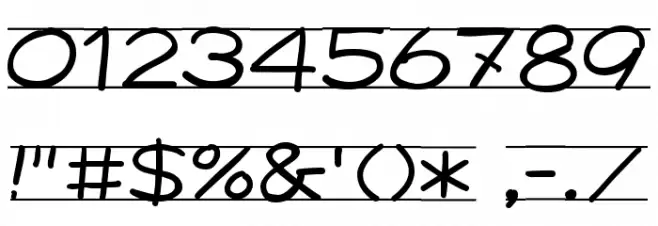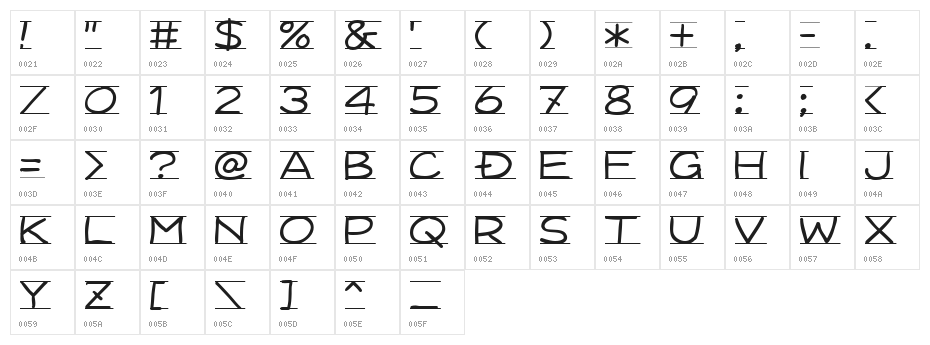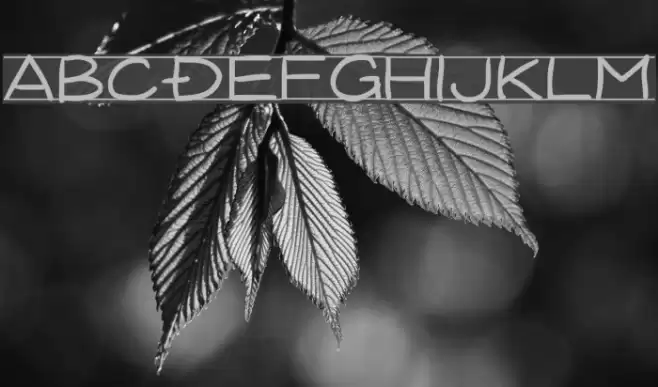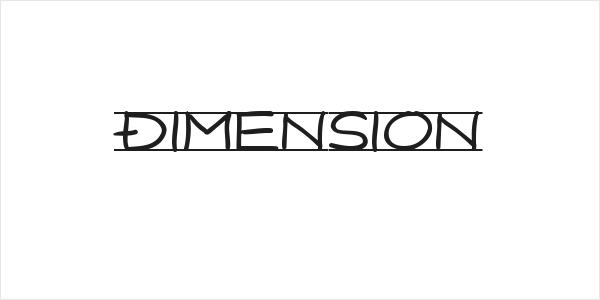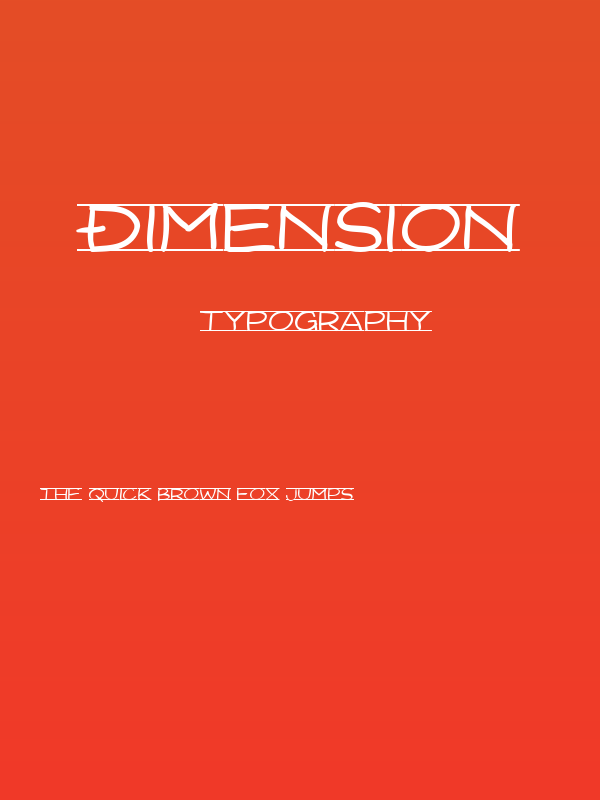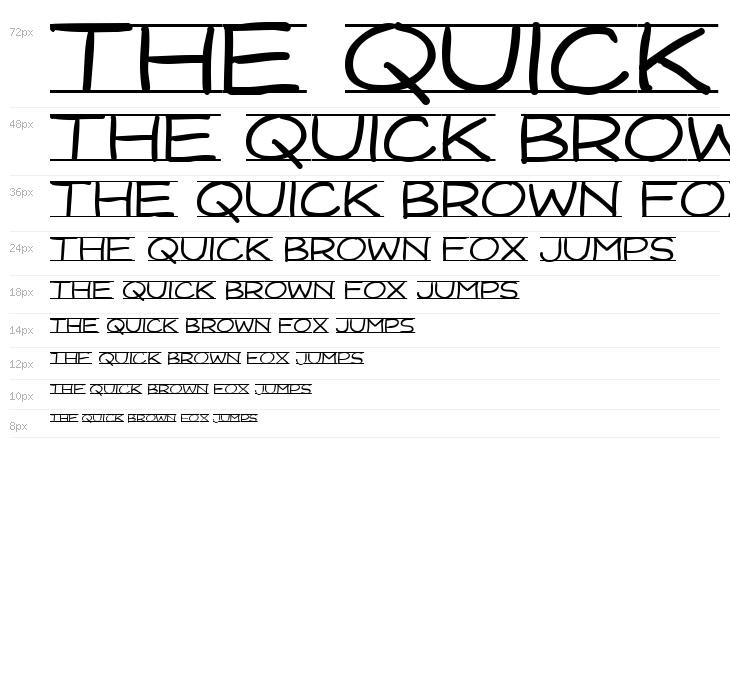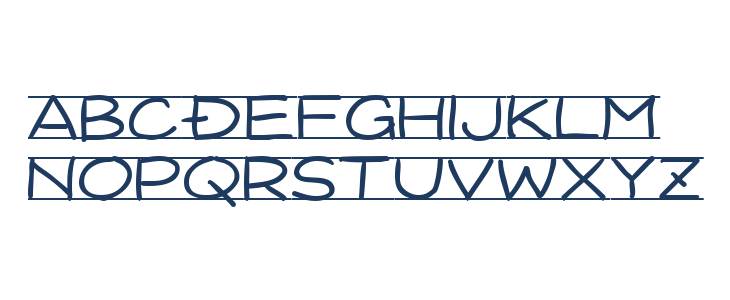
Dimension Font
Dimension Description
This font features a unique, hand-drawn style with a playful and artistic flair. Each character is crafted with a combination of straight lines and curves, giving it a whimsical yet structured appearance. The uppercase and lowercase letters maintain a consistent height, while the numbers and special characters are designed to complement the overall aesthetic. The font's strokes are bold and uniform, providing a strong visual impact. Its distinctive style makes it suitable for creative projects that require a touch of personality and originality.
| Use Case | Logos, Posters, Creative Projects |
| Proposed Projects | Ideal for children's books, creative posters, artistic branding, and playful invitations. |